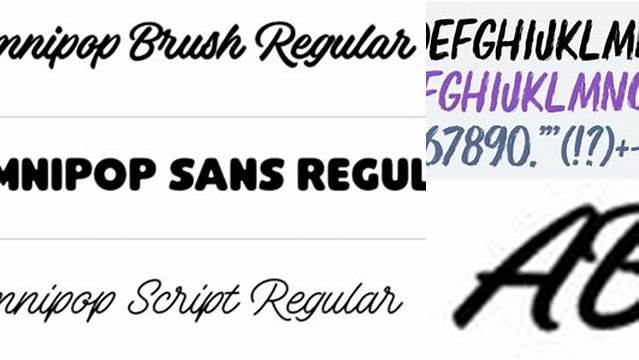
Omnipop Brush: Free Font Guide
Introduction: Unleashing the Power of Omnipop Brush Regular
Hey everyone! Have you heard about Omnipop Brush Regular, the amazing free font that's been making waves in the design world? If you're a designer, a marketer, or just someone who loves cool fonts, you're in for a treat. This guide will dive deep into everything you need to know about Omnipop Brush Regular, from its unique characteristics to how you can use it to spice up your projects. We'll cover the font's origins, its design elements, its versatility, and where you can snag it for free. Get ready to level up your typography game, guys! The Omnipop Brush Regular font is not just another font; it's a statement. Its bold, playful strokes and distinctive character make it ideal for grabbing attention and adding a touch of personality to your designs. This font stands out in a crowd of generic typefaces, offering a fresh and dynamic look that's perfect for a wide range of applications. Whether you're working on a branding project, designing a website, or creating social media graphics, Omnipop Brush Regular can be your secret weapon. Its free availability also means that it's accessible to everyone, from seasoned professionals to budding enthusiasts. Its user-friendly nature means that it's easy to incorporate into your projects, no matter your level of experience. The font's popularity is not just a coincidence; it's a testament to its quality and adaptability. It has found its way into countless designs, from logos and posters to packaging and digital advertisements. The consistent use and positive feedback from designers worldwide confirm its high quality. When choosing a font, consider the overall message you want to convey. The Omnipop Brush Regular font brings energy and enthusiasm, making it an excellent choice for projects aiming to connect with a youthful and vibrant audience. Its design also makes it easy to read and understand, ensuring that your message gets across clearly. Therefore, understanding the features of the Omnipop Brush Regular font is vital for any designer looking to make a statement. The font's unique characteristics and broad usability make it an indispensable tool in today's digital world. So, if you're ready to enhance your design toolkit and learn everything about this fantastic font, keep reading!
The Origins and Design of Omnipop Brush Regular
Let's dive into the exciting world of Omnipop Brush Regular and understand what makes it so special. The font was designed with a clear vision – to create a typeface that is both visually striking and easy to read. The designers aimed for a balance between artistry and functionality, resulting in a font that is versatile enough to be used in many different applications. The font's design is characterized by its bold strokes and playful style, reminiscent of hand-painted lettering. This gives it a unique, organic feel that sets it apart from the more rigid, machine-made fonts. The brush-like texture is perfect for conveying a sense of authenticity and warmth, making it a great choice for projects that aim to connect with audiences on a personal level. One of the key features of Omnipop Brush Regular is its readability. Despite its bold appearance, the font is designed to be easily read, even at smaller sizes. This makes it a perfect option for headlines, subheadings, and even short blocks of text. The designers paid careful attention to the spacing and form of each character to ensure that the font is both visually appealing and user-friendly. The character set of Omnipop Brush Regular is extensive, including a variety of special characters and ligatures. This allows designers to customize the appearance of the font and ensure that it works well in different languages and contexts. The font also includes various stylistic sets, providing additional flexibility and creative control. These variations allow designers to experiment with different looks and create unique typographic compositions. The designers' meticulous approach and their keen eye for detail resulted in a font that is both beautiful and highly functional. This attention to detail contributes to its overall success and its consistent use in high-profile design projects. In a nutshell, Omnipop Brush Regular stands out due to its origin, its unique design, and its versatile character set. All these elements blend perfectly, making it a must-have tool for designers wanting to add a creative touch. Its bold strokes and user-friendly design make it the perfect choice for any project needing a fresh and dynamic look.
Applications and Versatility: Where to Use Omnipop Brush Regular
Alright, now that we know what Omnipop Brush Regular is all about, let's talk about where you can actually use it. This font is super versatile, which means you can apply it to a bunch of different projects, from digital to print. First off, let's consider branding. Omnipop Brush Regular is perfect for creating logos, especially for brands that want to appear friendly, approachable, and a little bit quirky. It's a great choice for startups, creative agencies, or any company that wants to make a bold statement. Think about it – a logo with this font will instantly grab attention and stick in people's minds. Next up, we have website design. This font is ideal for headings and subheadings. The font's bold style can instantly make your website pop. It’s a fantastic choice if you want to give your website a modern, playful vibe. Make sure the font size is appropriate for readability; you don't want visitors to squint. Another area where Omnipop Brush Regular shines is in social media graphics. Whether you're designing posts for Instagram, Facebook, or any other platform, this font can help your content stand out. It's great for creating eye-catching headlines, quotes, and promotional text. Moreover, Omnipop Brush Regular is a fantastic choice for posters and flyers. If you're promoting an event, a sale, or anything else, this font can help you capture attention and communicate your message clearly. The font’s unique style will make your poster stand out in the sea of generic designs. What about packaging design? Well, you guessed it, the Omnipop Brush Regular font works great here too. It's perfect for product labels, packaging inserts, and other elements. The font's playful style can add a touch of fun to your products, helping them stand out on the shelf. The font can be used for a wide range of different designs, from fun and creative projects to serious and professional ones. The font's unique look gives you a lot of flexibility, and the result is always stunning. Therefore, whether you're working on a personal project or a professional one, Omnipop Brush Regular has got you covered. Its versatility makes it an excellent addition to any designer's toolbox. This font's ability to look good in so many different contexts is what makes it so special. So, the next time you're looking for a font that's both stylish and versatile, think of Omnipop Brush Regular. You won't be disappointed!